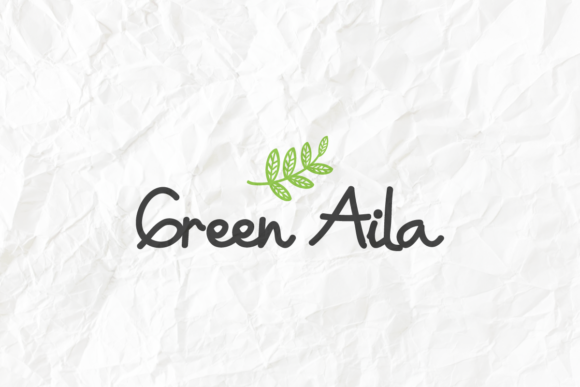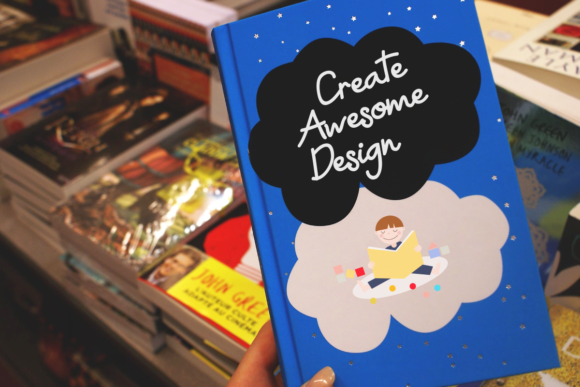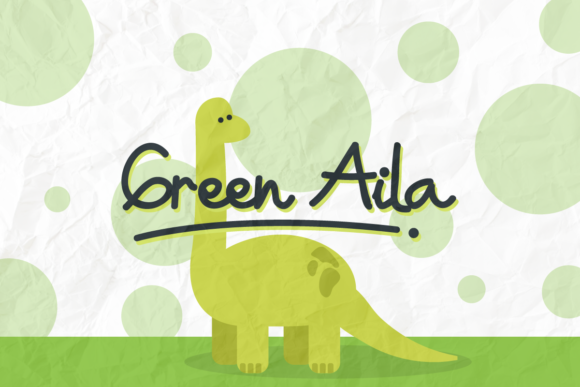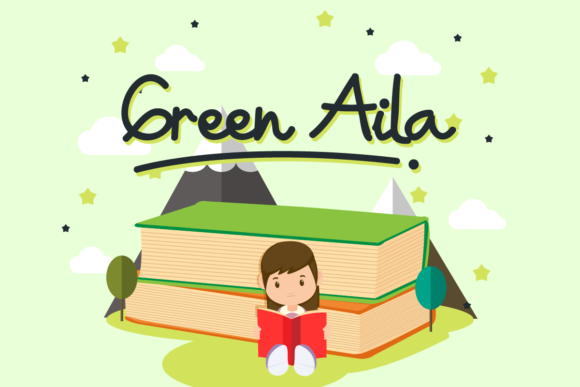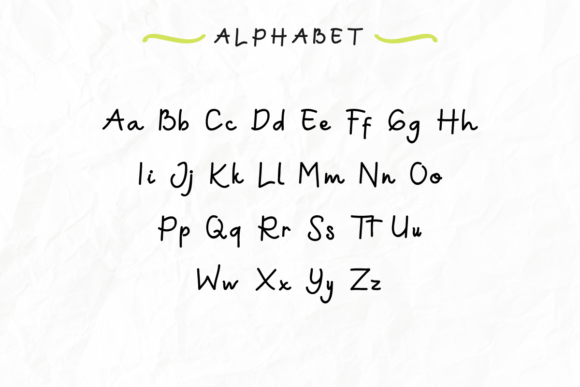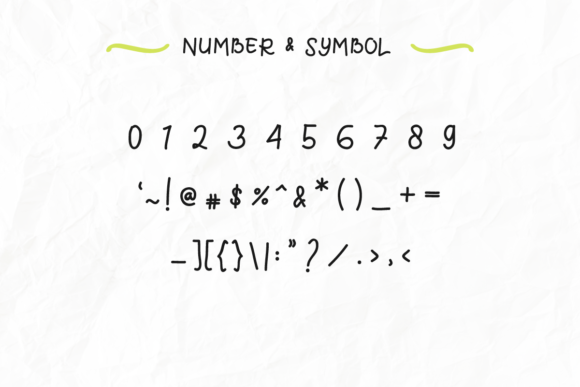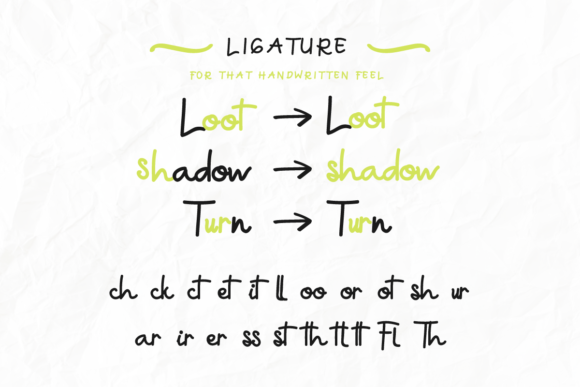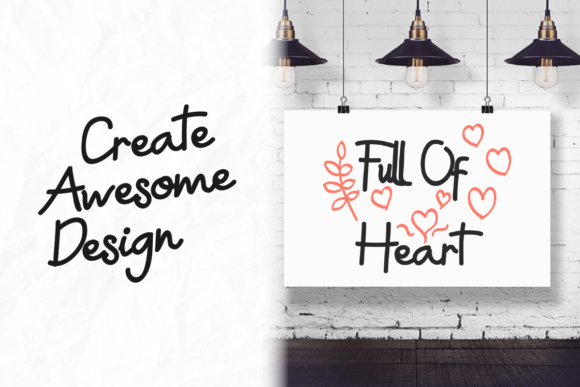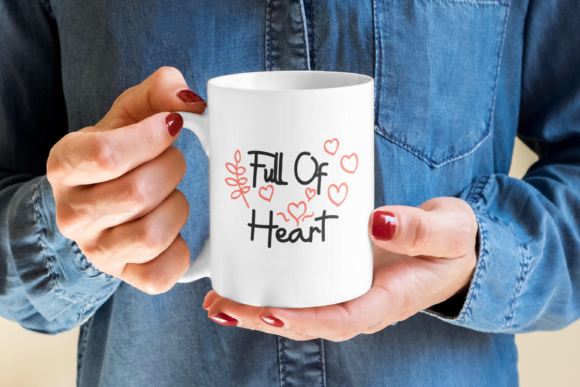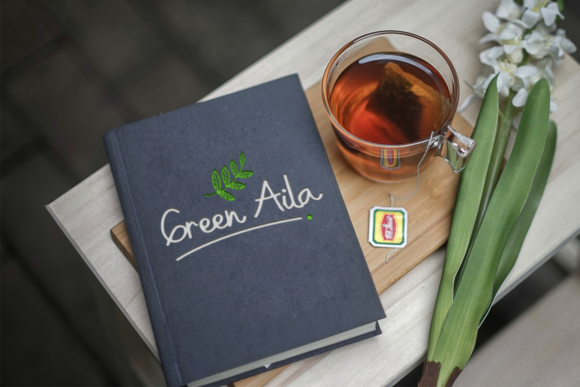
Green Aila Font
About Green Aila Font
Green Aila is a comic-style handwritten font with a cute feel. It will add a whimsical and joyful spark to any creative project!